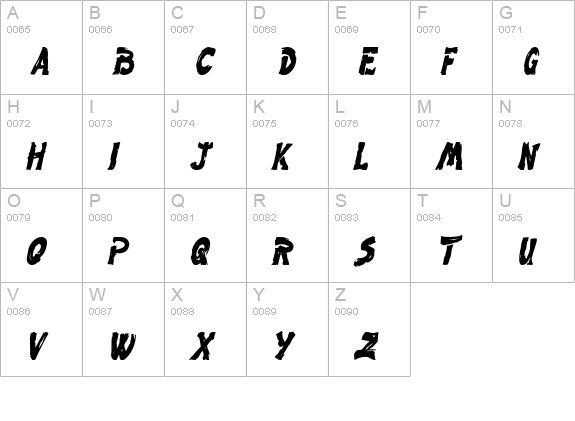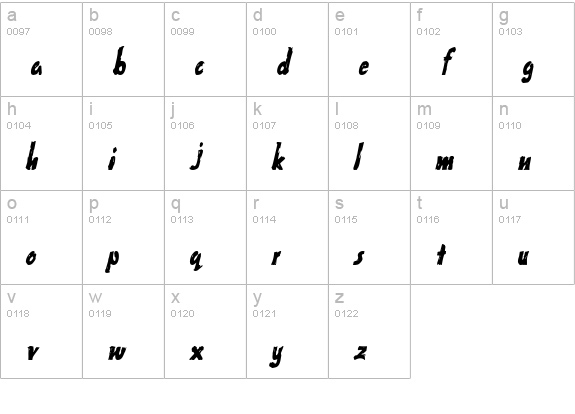
PaintCondensed Italic Font Details
PaintCondensed Italic is a distinctive, italic variant in the PaintCondensed typeface family \xE2\x80\x94 well suited to design and typography projects.
PaintCondensed Italic is a unique and eye-catching font that adds a touch of creativity and playfulness to any design project. With its slanted and condensed letterforms, this font exudes a sense of dynamism and movement, making it perfect for titles, logos, and headlines. The Italic style of PaintCondensed adds a touch of elegance and sophistication, making it suitable for projects that require a more refined and stylish look. Whether you are designing a poster, a book cover, or a branding project, this font will make your design stand out from the crowd. One of the best features of PaintCondensed Italic is that it is available for free download at FontsMarket.com. This means that you can easily access this font and use it in your projects without any additional cost. FontsMarket.com offers a vast collection of high-quality fonts, and PaintCondensed Italic is just one of the many amazing typefaces you can find there. So, if you are looking for a font that combines creativity, elegance, and affordability, look no further than PaintCondensed Italic. Download it for free at FontsMarket.com and start adding a touch of style to your designs today.